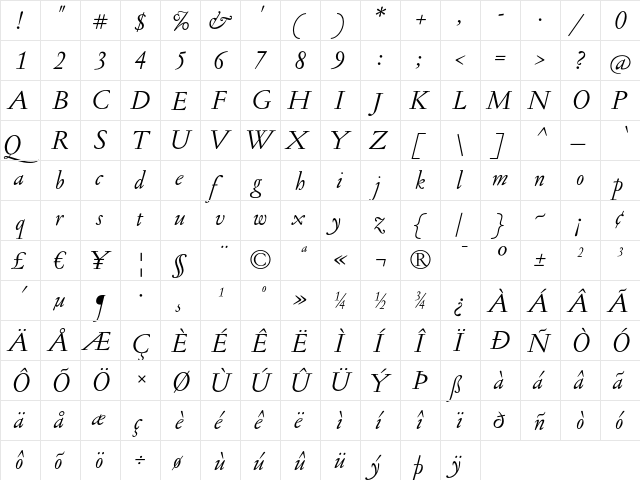
Jannon Ant Italic
| Foundry | Frantisek Storm, stormtype.com |
Design Context for Jannon Ant Typeface
Jannon Ant takes a measured approach to typography — its balanced proportions and neutral character make it a reliable workhorse for both digital and print work. Its italic angle brings a sense of urgency and motion to the letterforms.
Pro Tip: Use Jannon Ant for emphasis, pull quotes, and subheadings where its slanted energy can add rhythm to the layout.